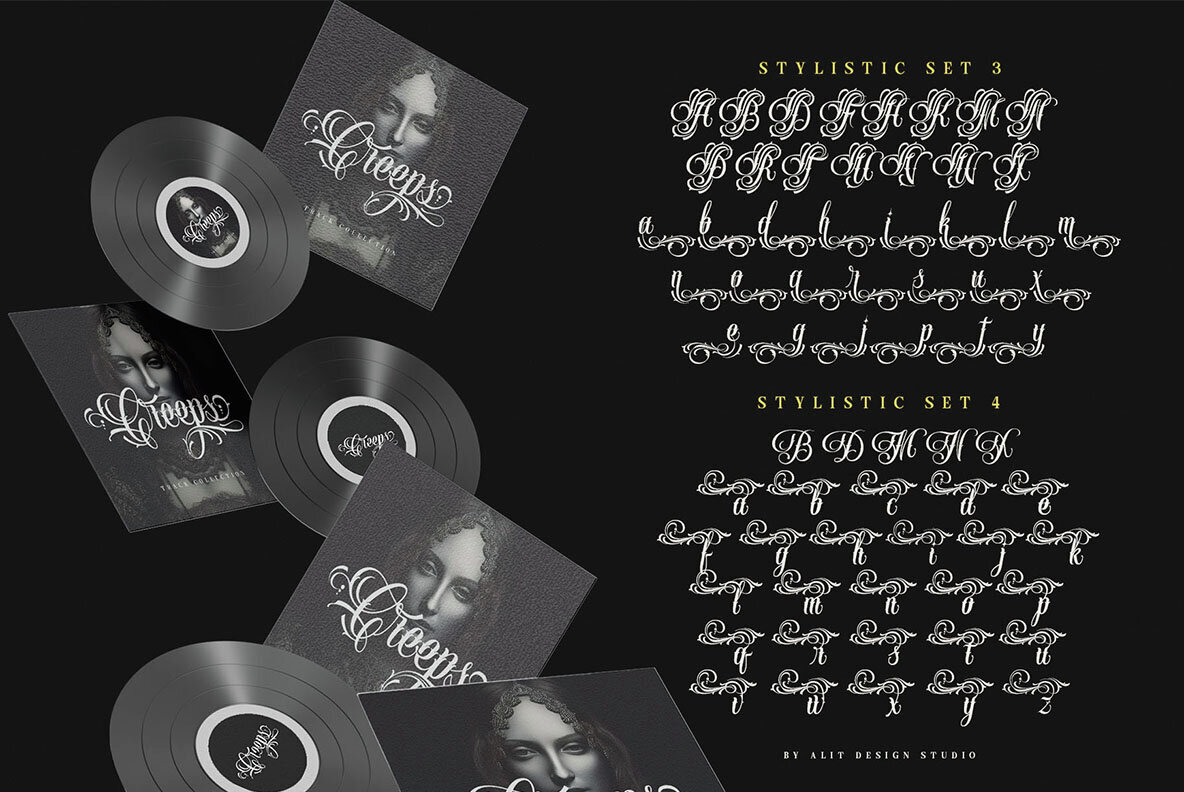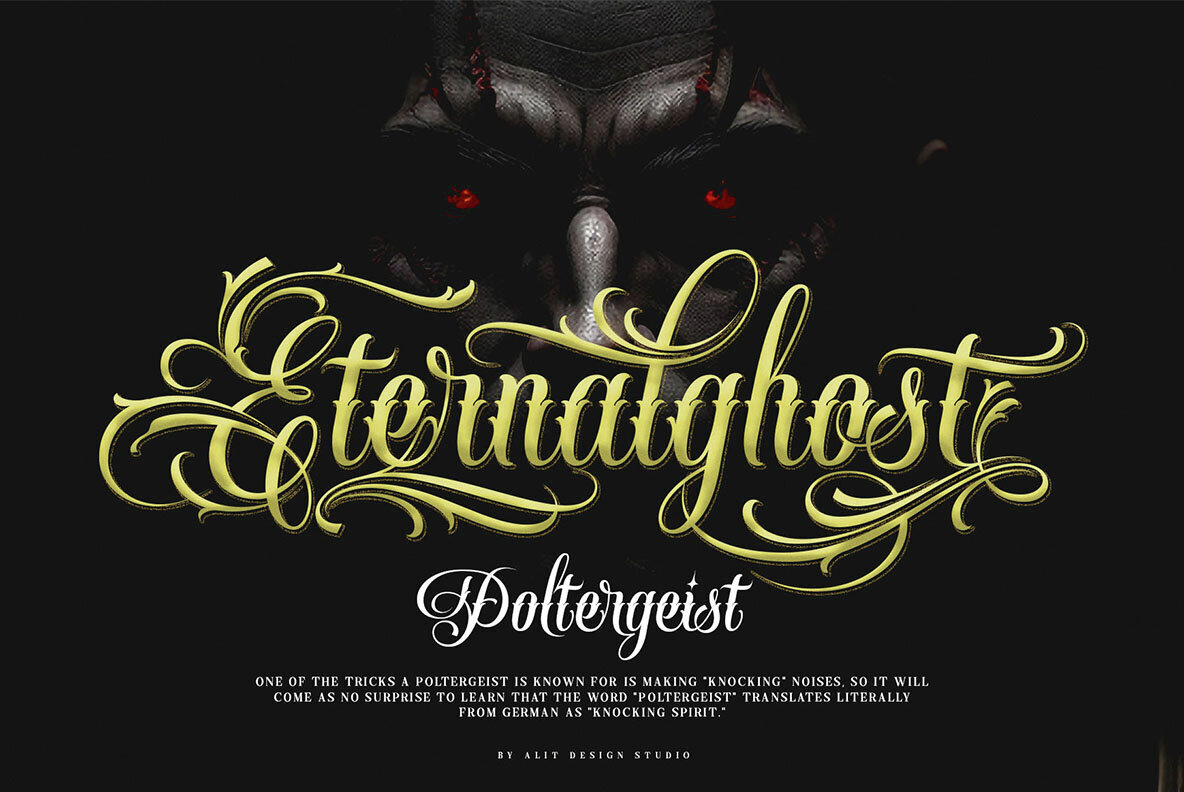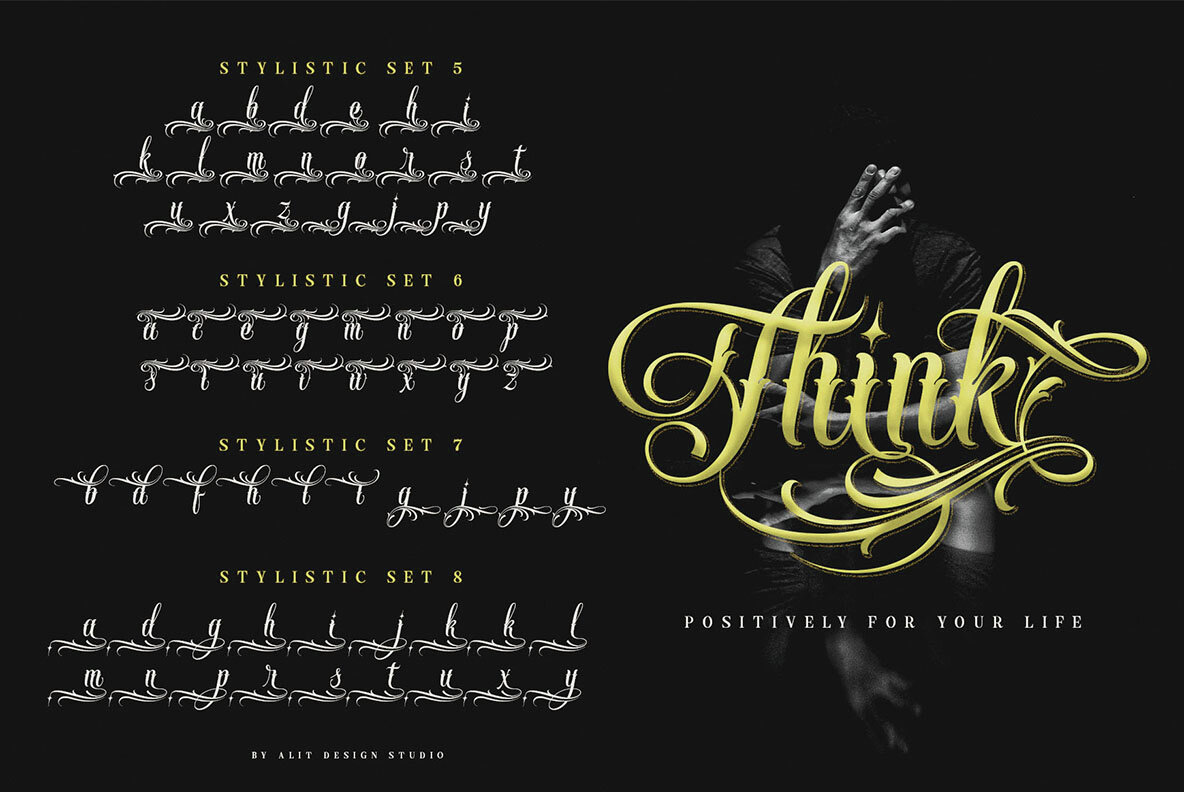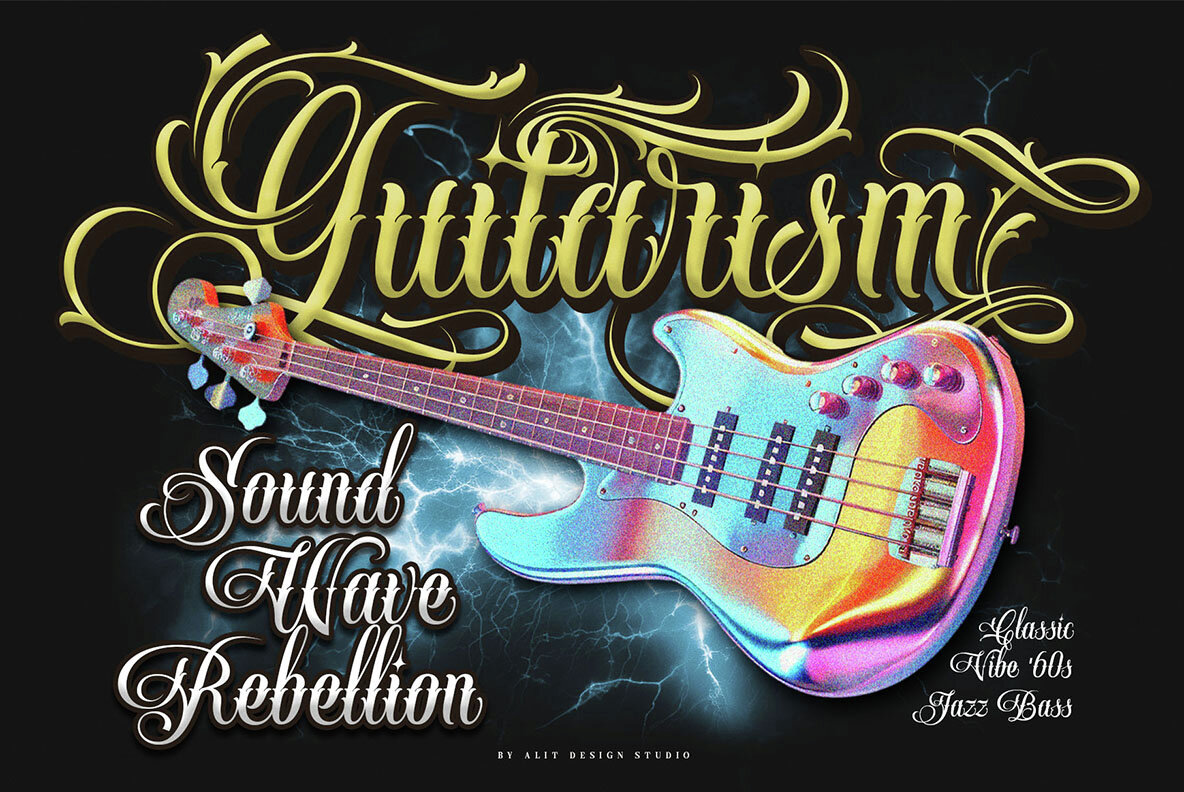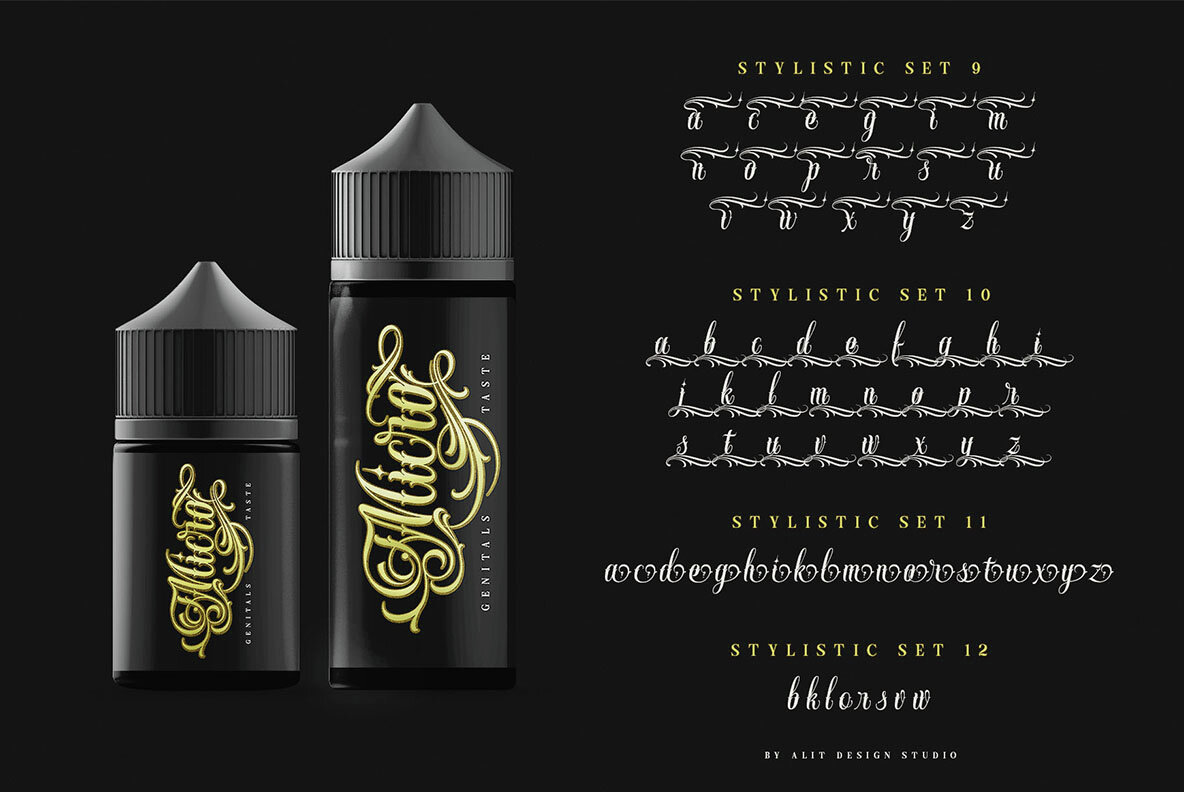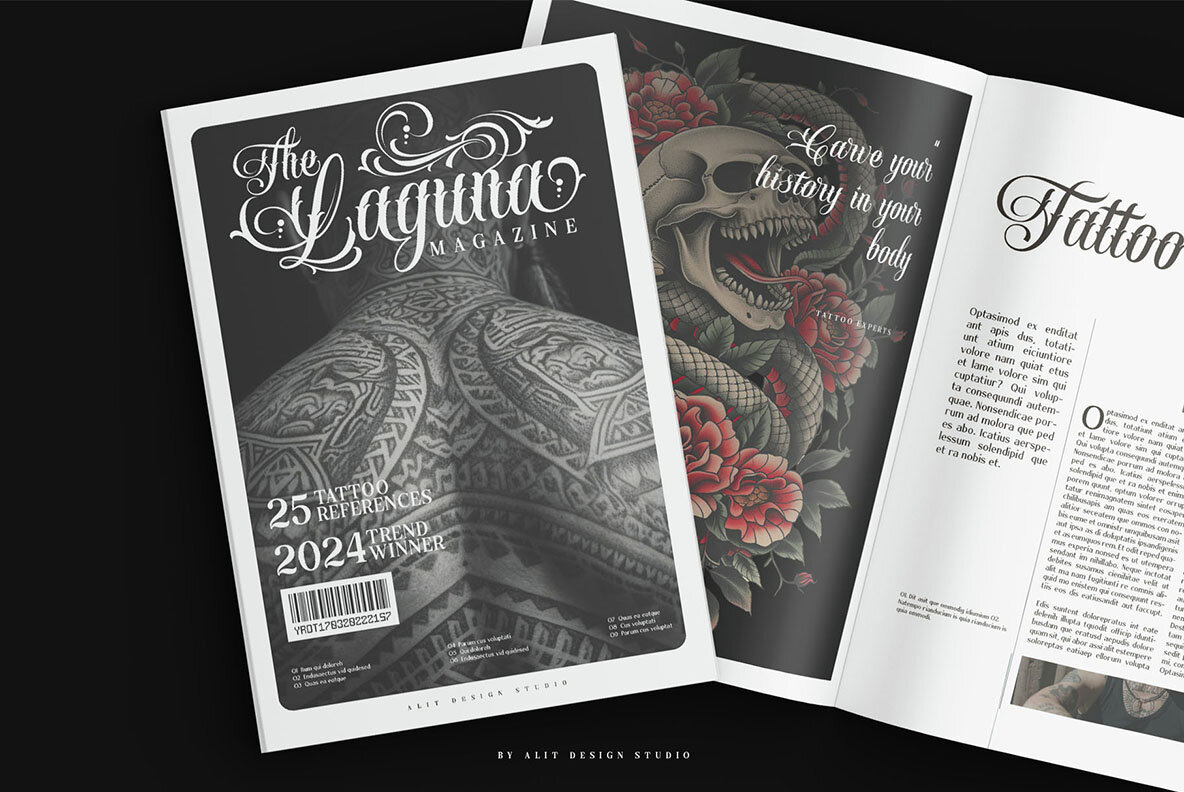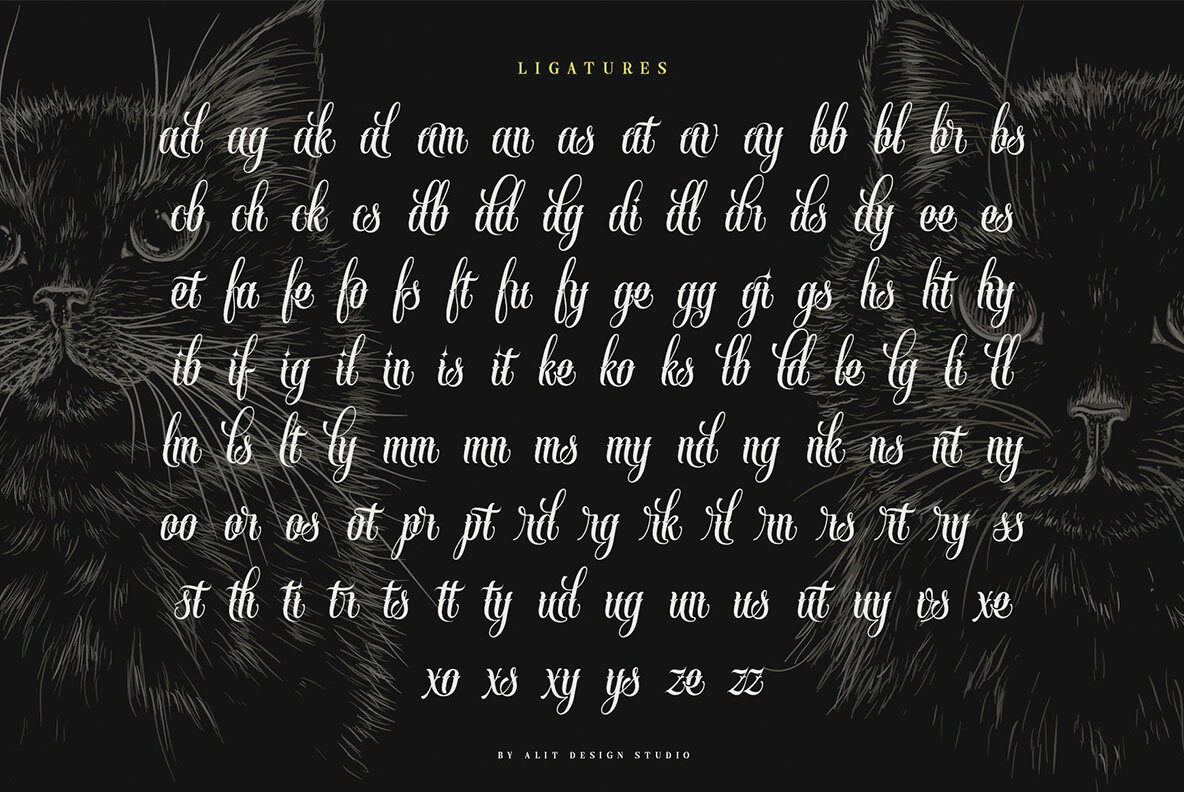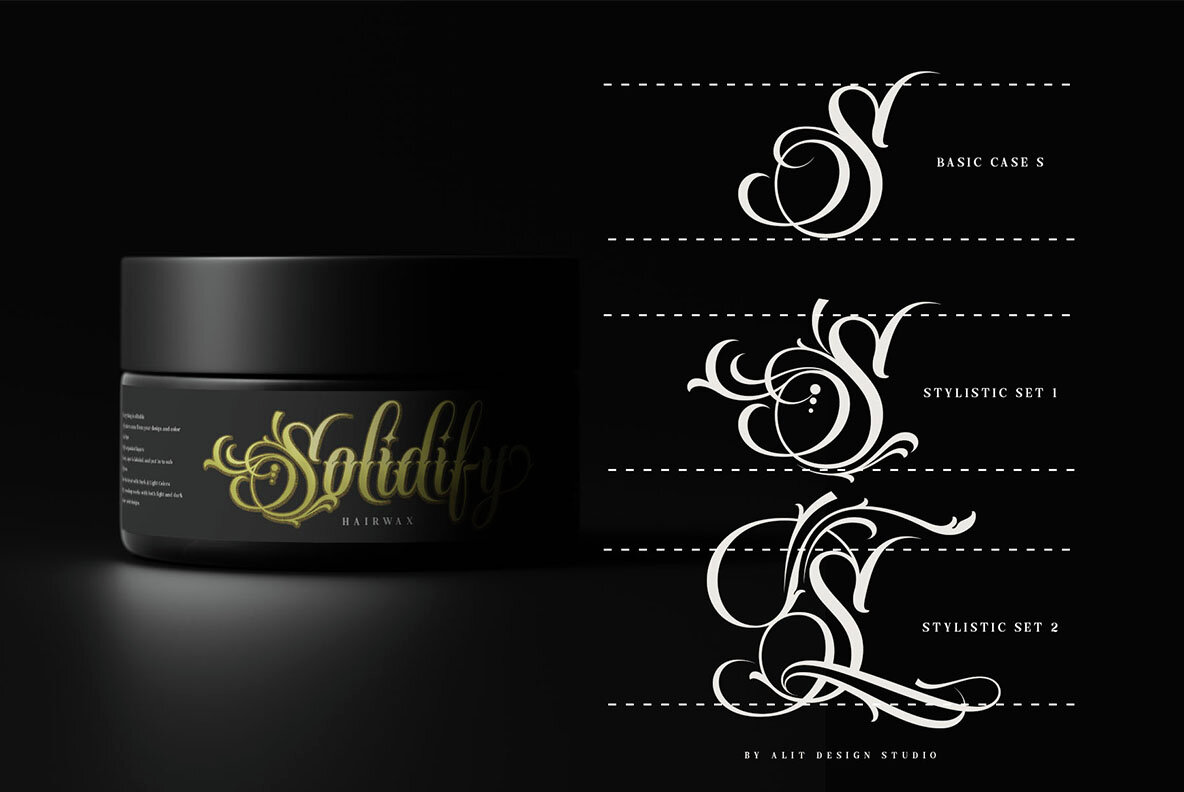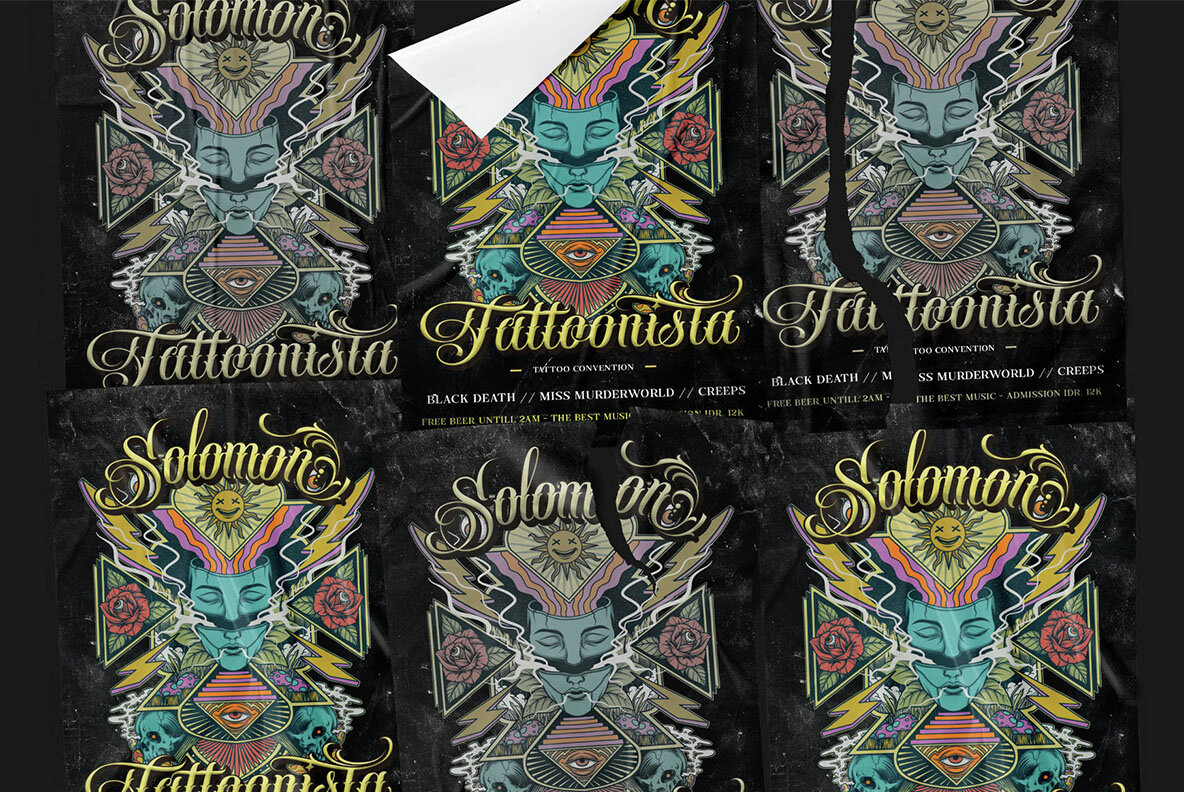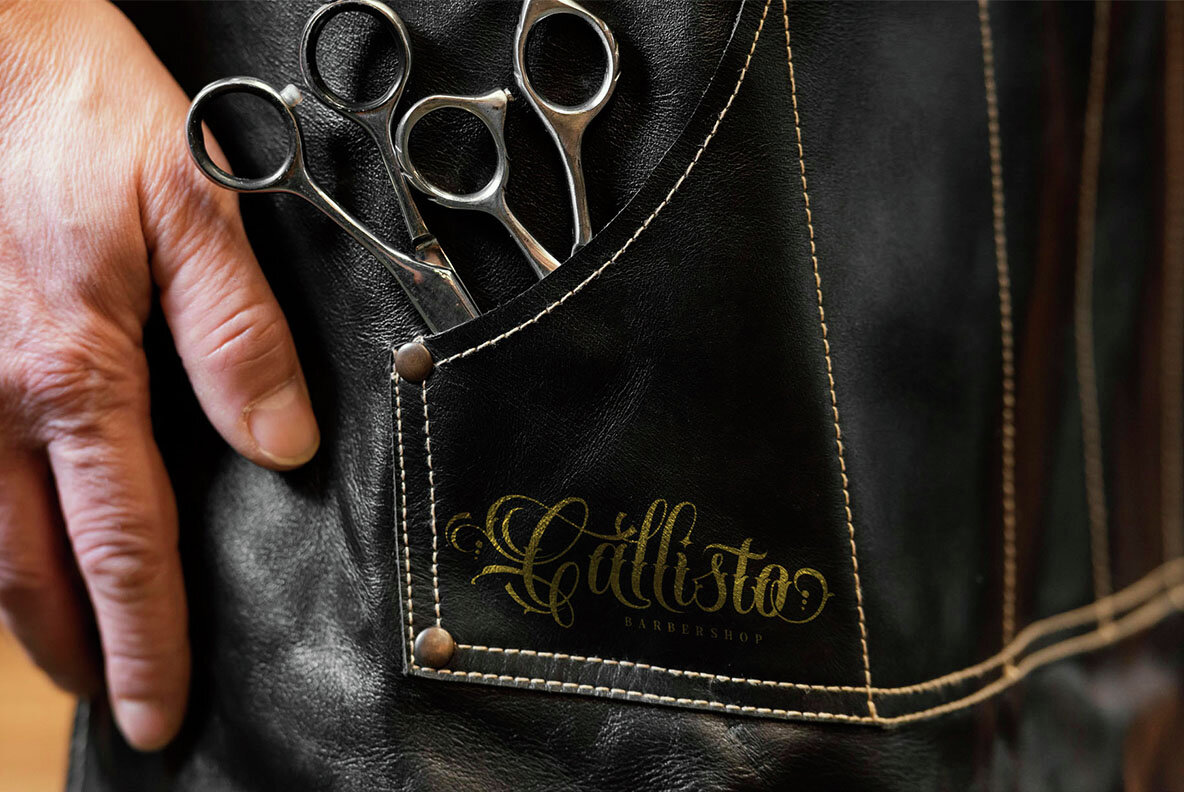
Handrid Familia Font
Handrid Familia Regular
Presenting the masterstroke by renown designer Alit Suarnegara - The Handrid Familia Typeface. Conceived from the pulse of traditional Mexican family script, this idiosyncratic typeface is artistically strewn with robust and intricate Mexican gangster art inspired swashes and tattoos. This unique design pays homage to a rich cultural heritage, creating a compelling experience for tassel graphic designers and comprehensive marketing firms.Handrid Familia Typeface: Infusing Traditional Mexican Aesthetic in Graphic Design